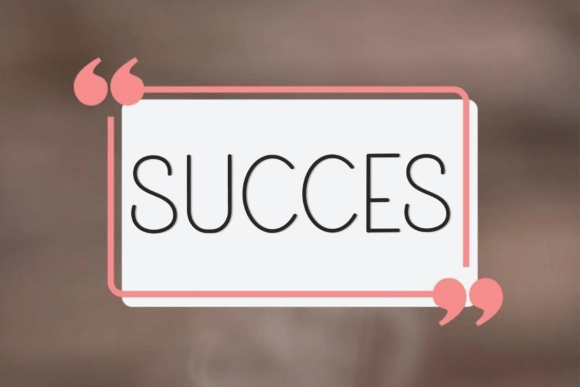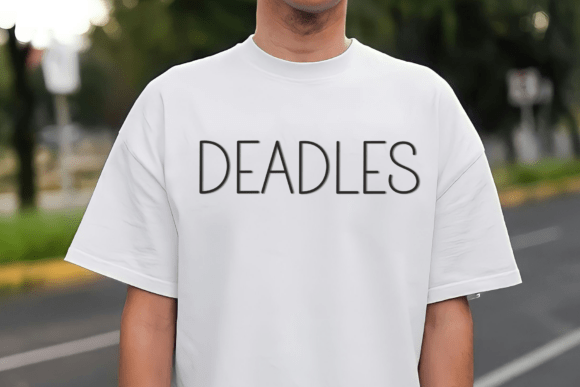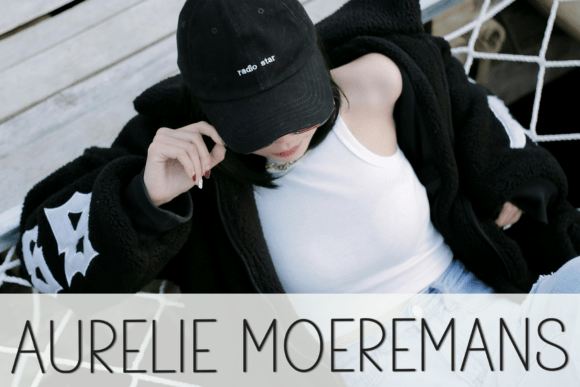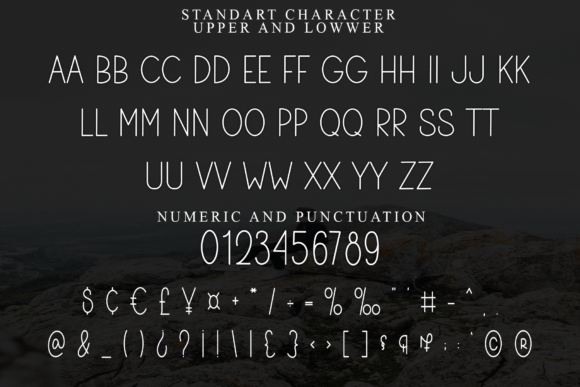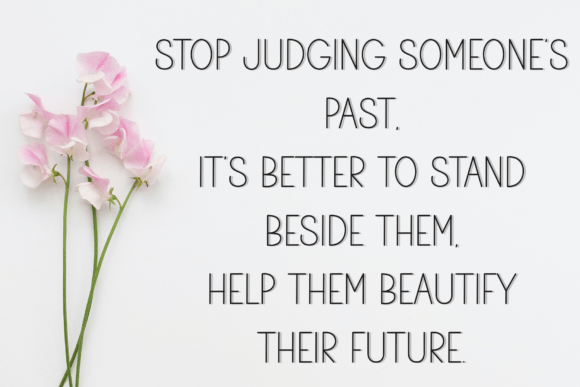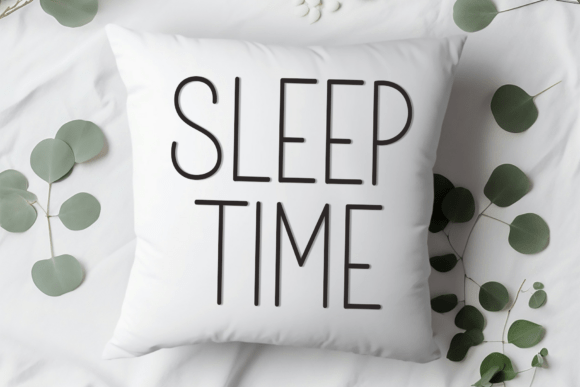
Introduction to Line Production Font
As you sit at your desk, surrounded by scraps of paper, paint swatches, and half-finished projects, you stumble upon a spark of creativity that sets your imagination ablaze. You envision a festive holiday card, a whimsical gift tag, or a magical invitation that transports your guests to a world of wonder. And in that moment, you know exactly which font will bring your vision to life: the enchanting Line Production Font.
This merry typeface is a design treasure trove, packed with decorative elements and whimsical flair that adds a touch of enchantment to your words. Whether you’re working on a high-quality creative project or simply need a reliable design resource, the Line Production Font is a valuable addition to your toolkit. With its transparent background and PUA encoding, accessing all the amazing glyphs and ligatures is a breeze, making it perfect for free download and incorporation into your next design.
Key Features of Line Production Font
- High-quality design: Line Production Font is a premium font designed for use in various creative projects, offering a unique and stylish look.
- Transparent background: The font features a transparent background, allowing for seamless integration with any design or image.
- High-resolution design: Designed at 300 DPI, this font is ideal for use in high-resolution prints, digital displays, and web designs.
- Perfect for logos and branding: The unique style and design of Line Production Font make it an excellent choice for creating logos, branding materials, and marketing collateral.
Honest Review: Line Production Font
I recently had the chance to dive into the Line Production Font and I must say it’s a great addition to any designer’s toolkit. The free download is a definite plus, making it accessible to creatives working on a budget.
- ✨ High-quality typography: The font is crisp and clean, making it perfect for a variety of creative projects.
- ✨ Transparent background: This feature is a game-changer for designers who want to ensure their text stands out without any distractions.
The Line Production Font is definitely a solid design resource, offering a versatile and modern look that’s sure to elevate any project. I appreciate how transparent the background is, which allows me to focus on the design without worrying about the background getting in the way.
- ⚠️ Limited customization options: While the font itself is excellent, the lack of customization options might be a drawback for some designers.
- ⚠️ Not suitable for bold headlines: The font is better suited for body text or smaller headings, as it might get lost in larger font sizes.
Overall, I’m impressed with the Line Production Font and would definitely recommend it as a reliable design resource. Just be aware of its limitations and use it accordingly.
Line Production Font
What is Line Production Font?
Line Production Font is a high-quality design resource ideal for various creative projects. It’s a free download that offers a transparent background, making it easy to customize and use in your favorite design software.
Tips for Getting the Most Out of Line Production Font
Common Use Cases for Line Production Font
Line Production Font is commonly used in various design projects, including social media graphics, presentations, logos, and typography. Its high-quality design and transparent background make it a versatile design resource.